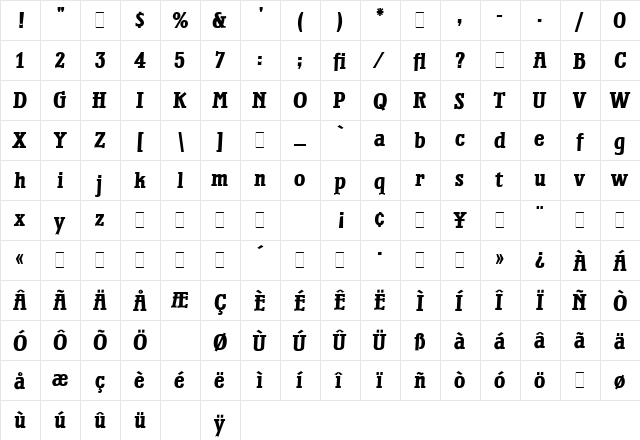
Waterloo Bold LET Plain
Design Context for Waterloo Bold LET Typeface
Waterloo Bold LET offers clean, dependable letterforms without strong stylistic allegiance, making it a practical choice for designers who need flexibility. Its bold stroke weight gives it real presence on the page.
Pro Tip: Use Waterloo Bold LET in both headline and body roles to test its range before committing to a single application.